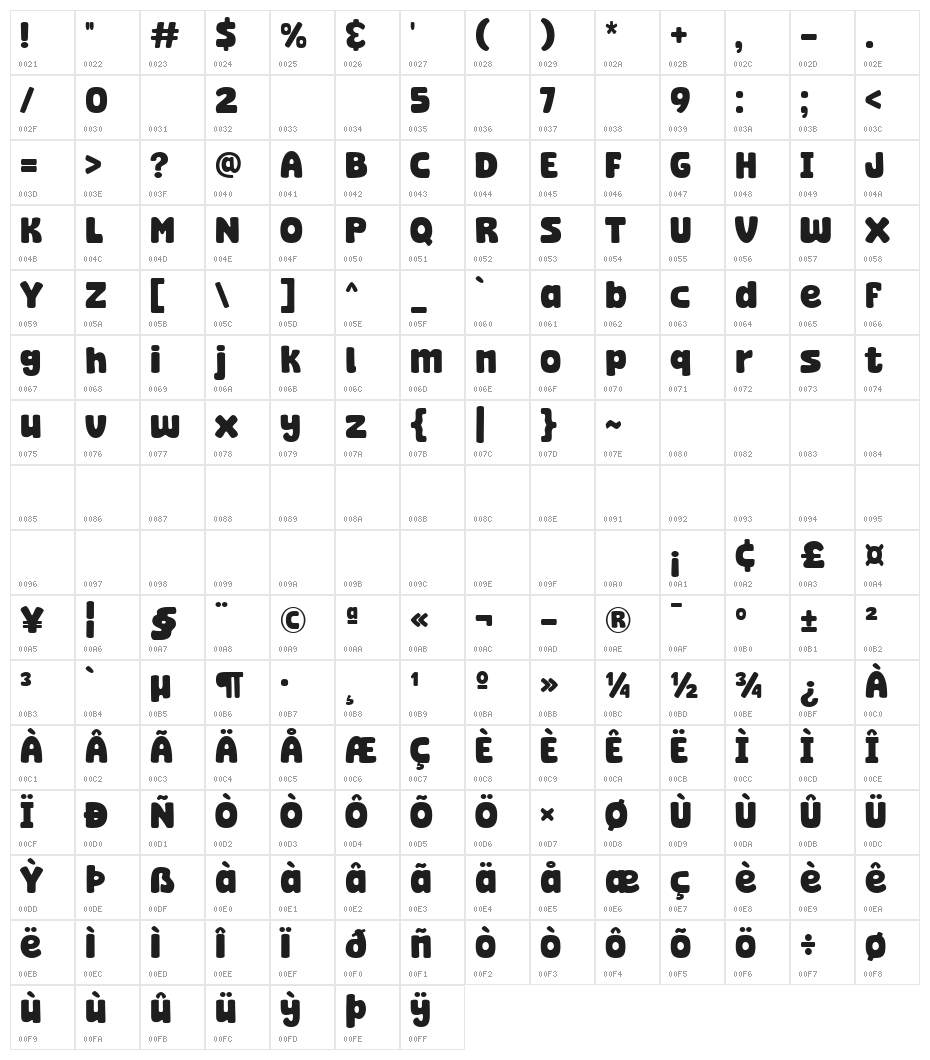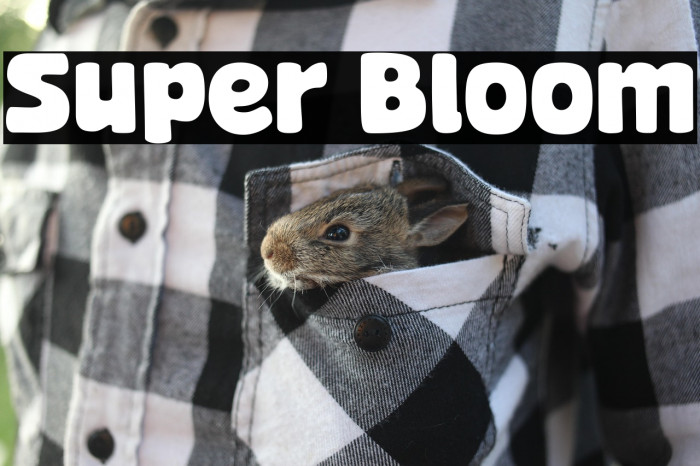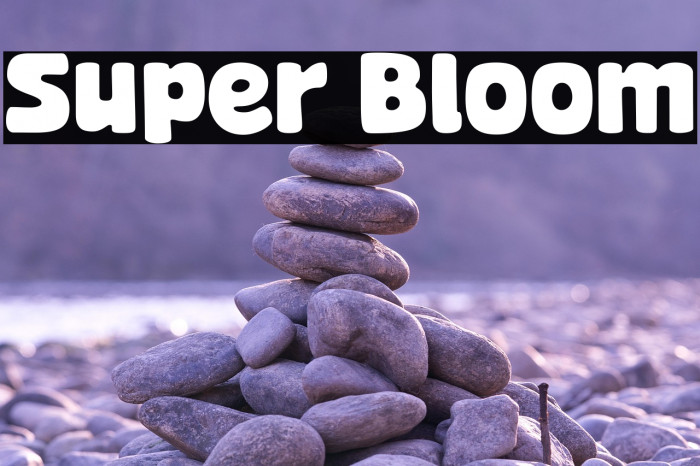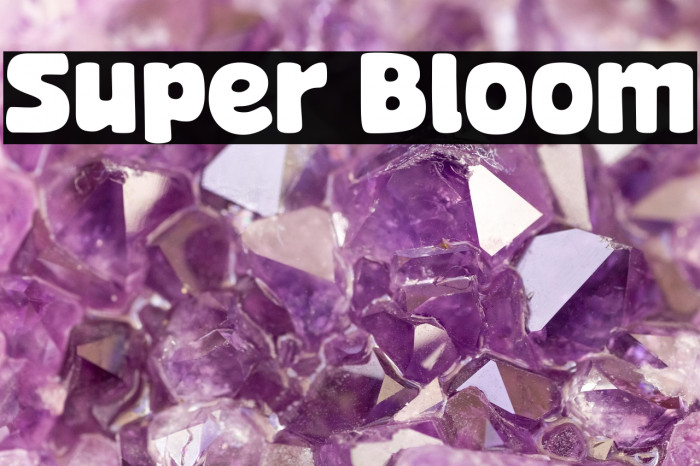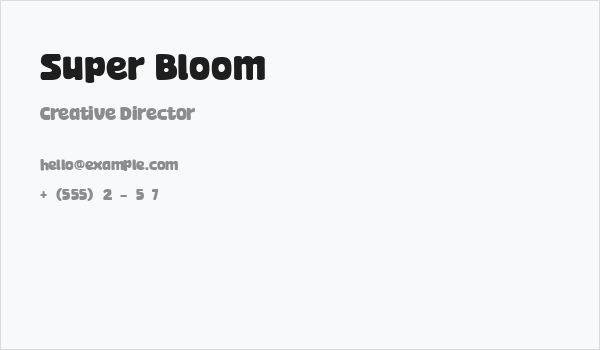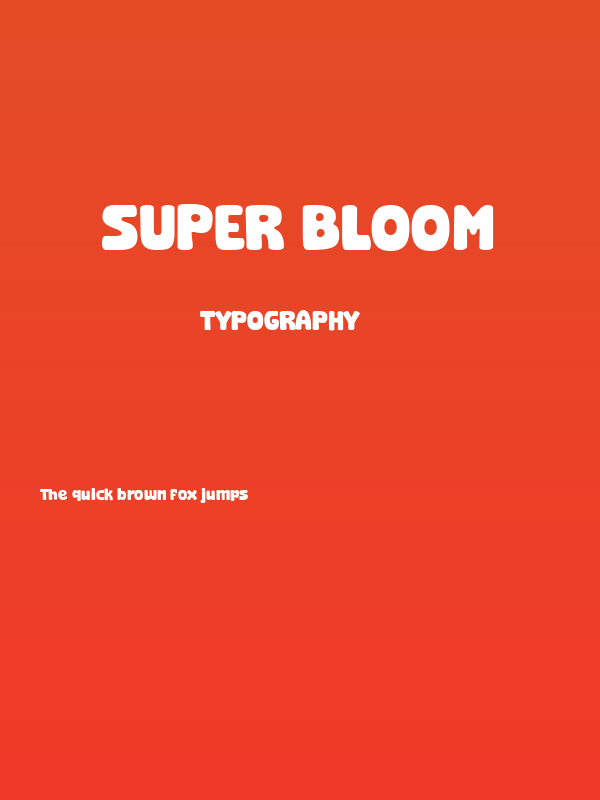
Super Bloom Font
Super Bloom Description
This font features a bold and playful design with rounded edges and a bubbly appearance. The characters are thick and uniform, providing a sense of fun and approachability. The uppercase and lowercase letters maintain a consistent style, with the lowercase letters slightly more compact. The numbers and special characters follow the same playful aesthetic, making them easily recognizable and cohesive with the overall design. This font is ideal for projects that require a friendly and inviting look, such as children's books, playful branding, or casual invitations.
| Overall Style | Playful, Fun, Inviting |
| Proposed Projects | Children's books, playful branding, casual invitations, posters, and social media graphics. |